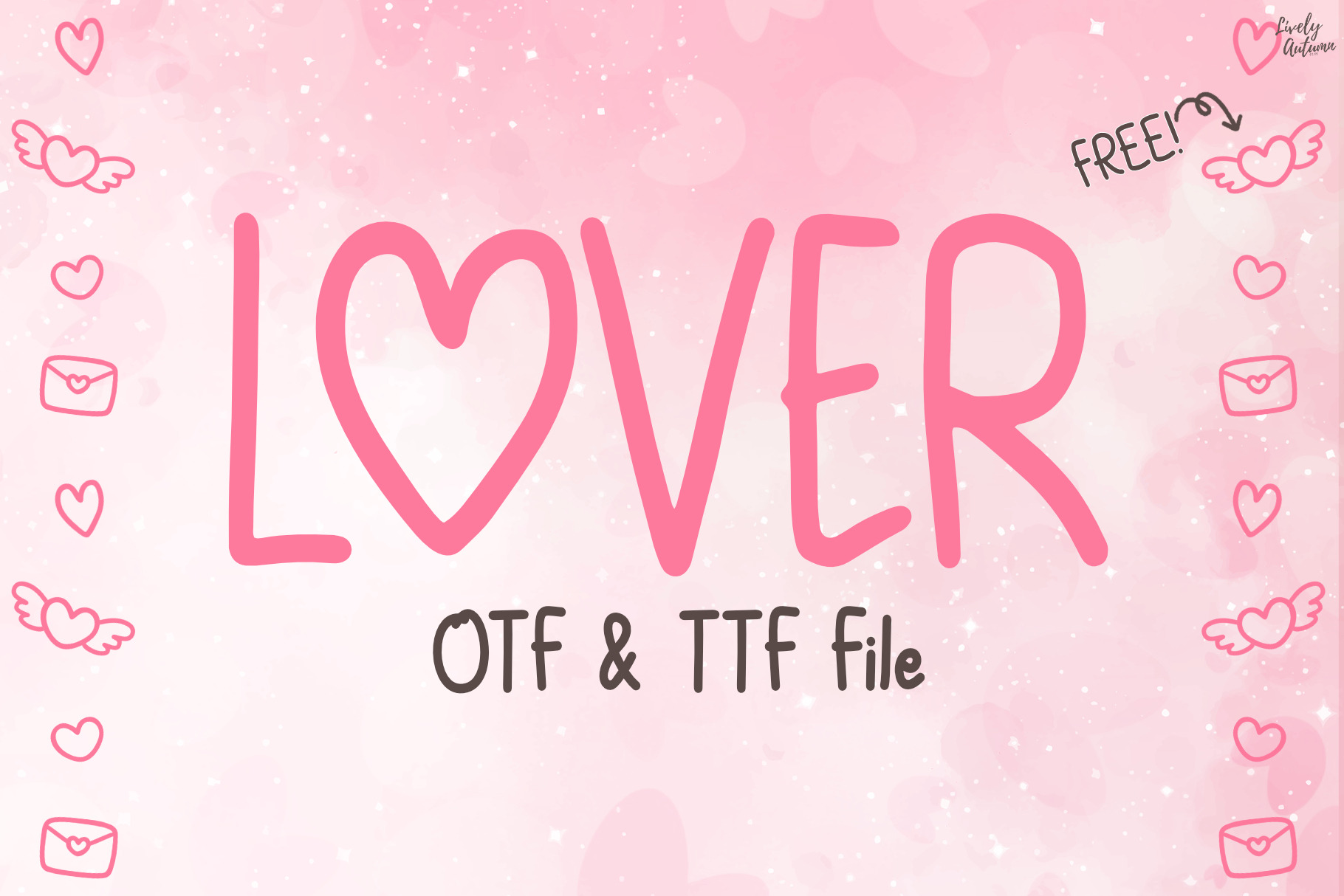
Lover | Handwriting font
Lover Font is a cute handwriting font where the letters 'O' and '0' are replaced with heart shapes. Perfect for your personal projects, Valentine projects and various project. From invitations to posters, social media graphics, journals, greeting cards, and much more.
- Font includes: uppercase, lowercase, numbers, and punctuation.